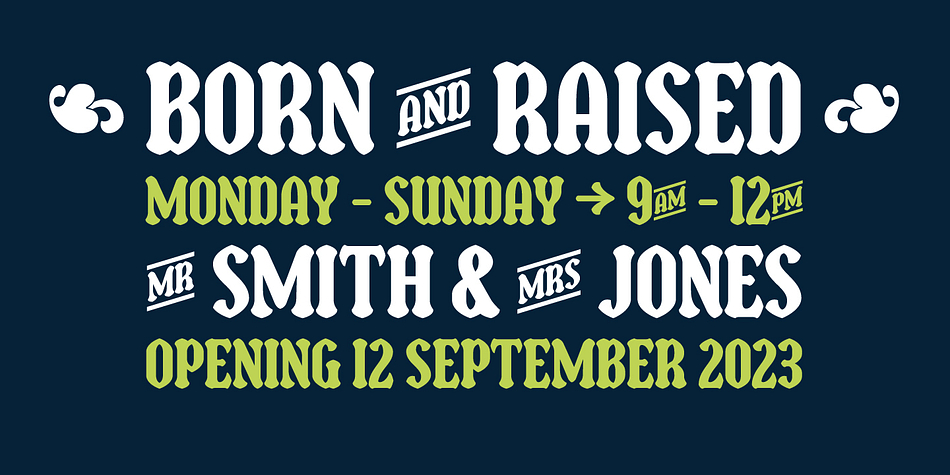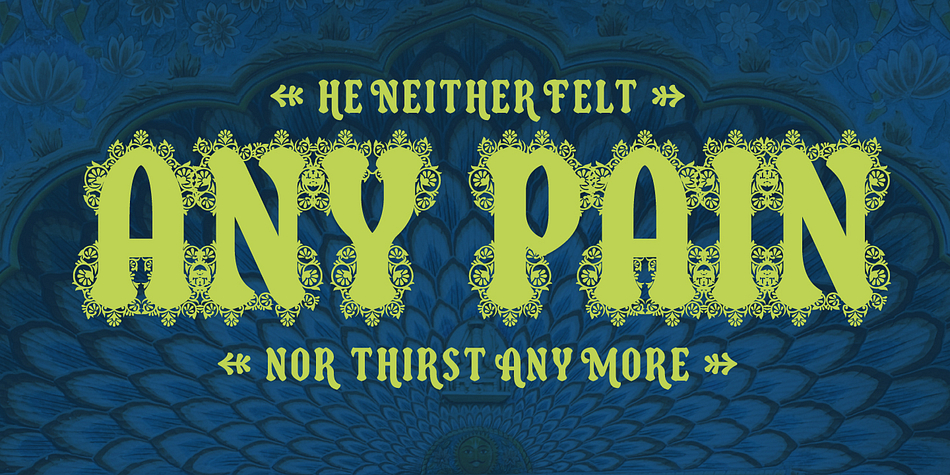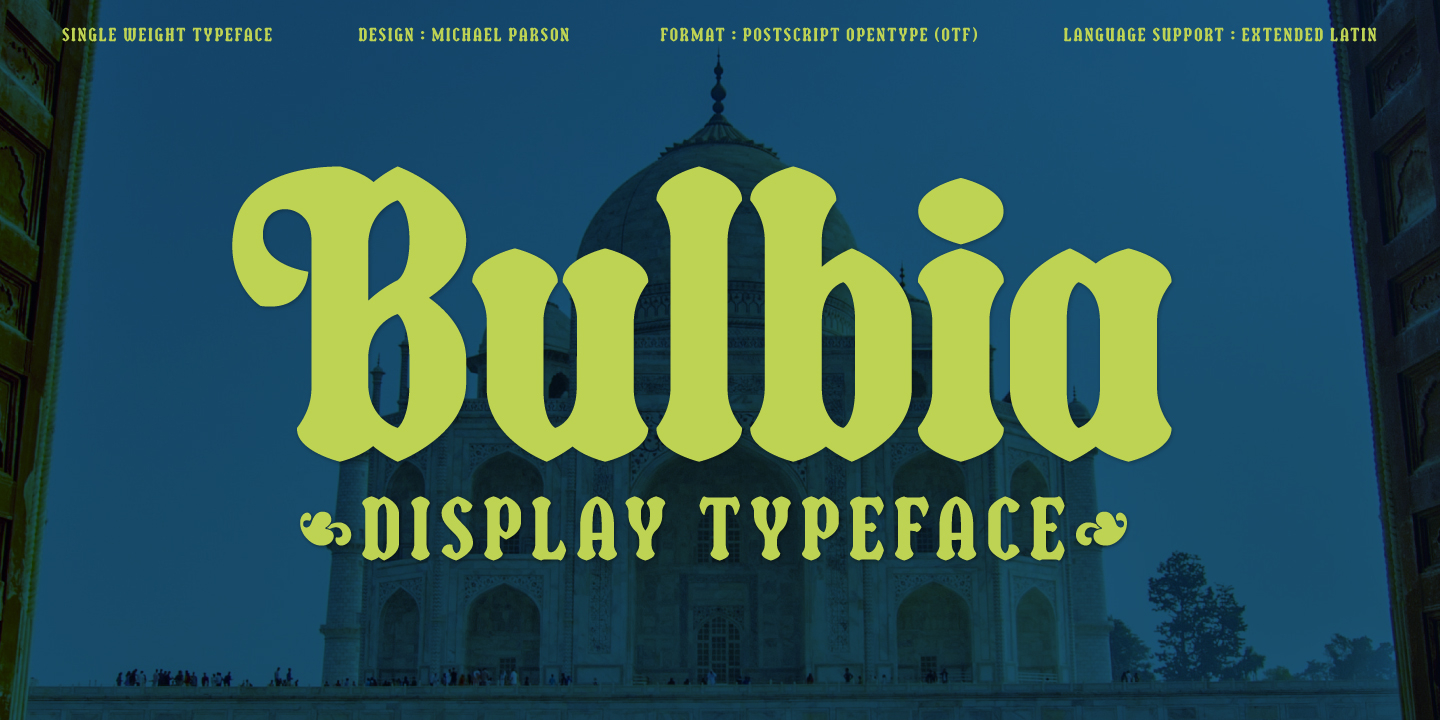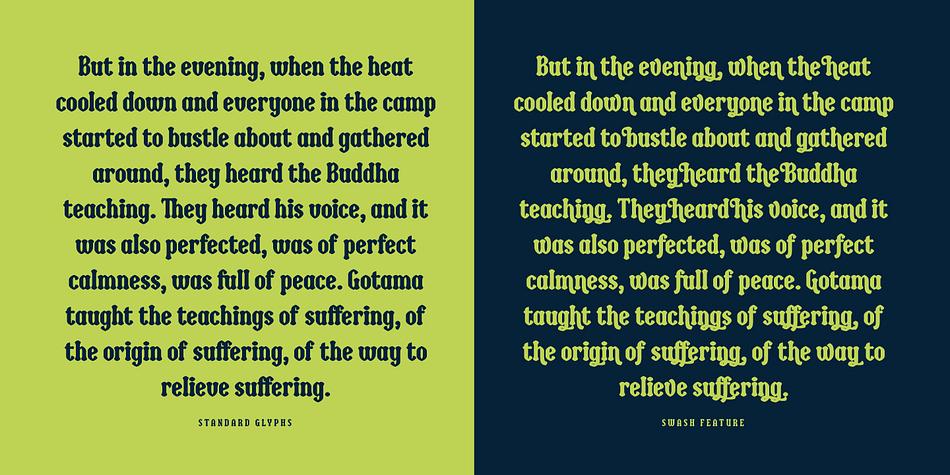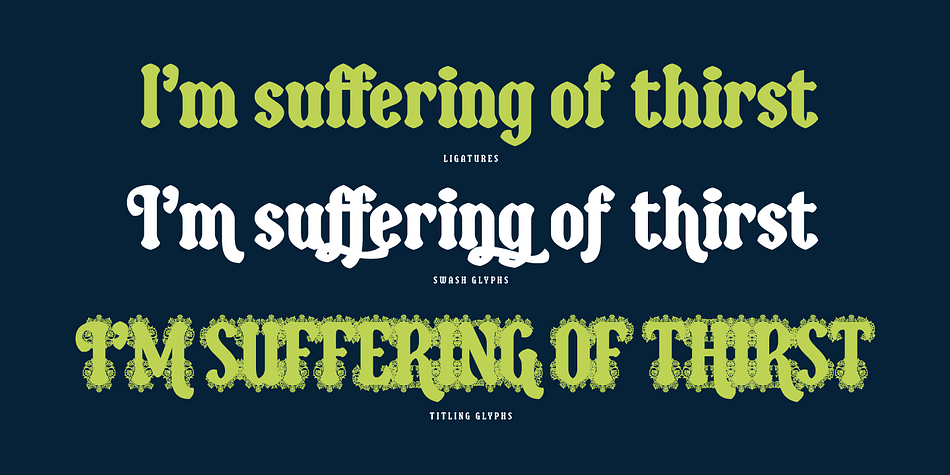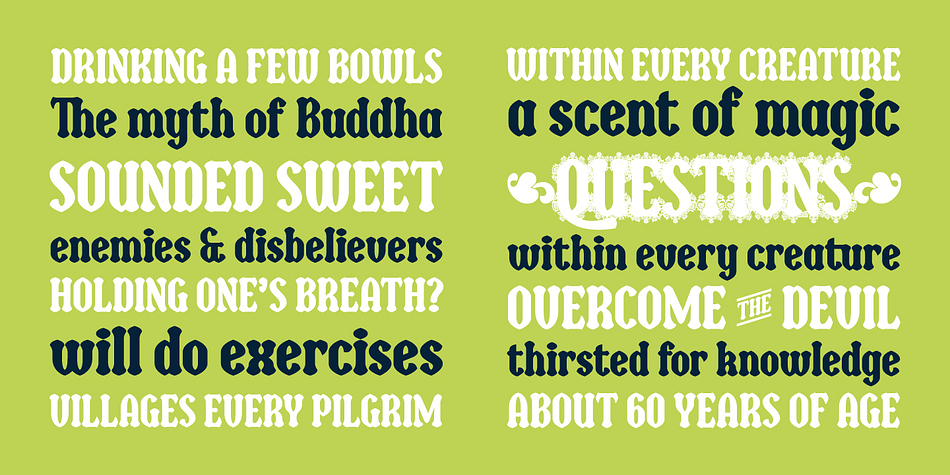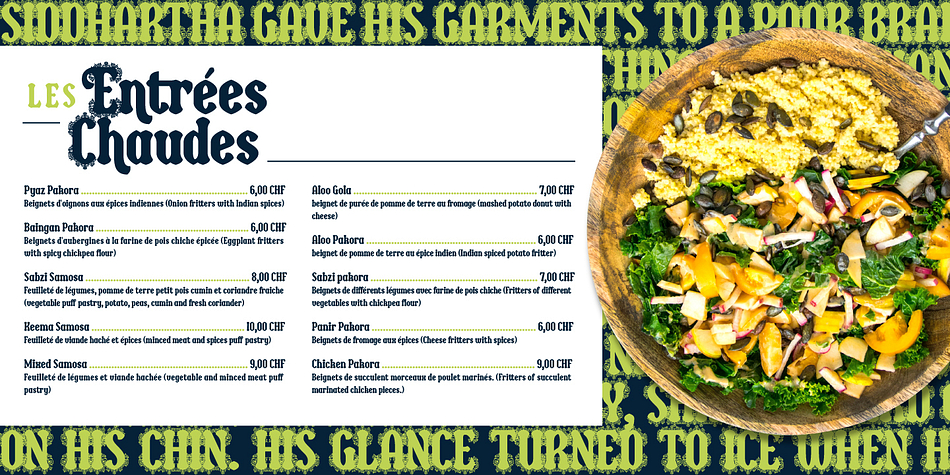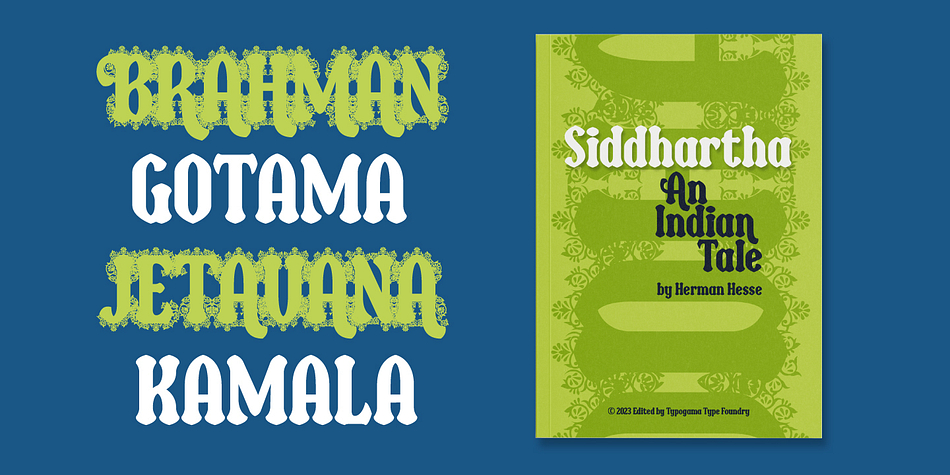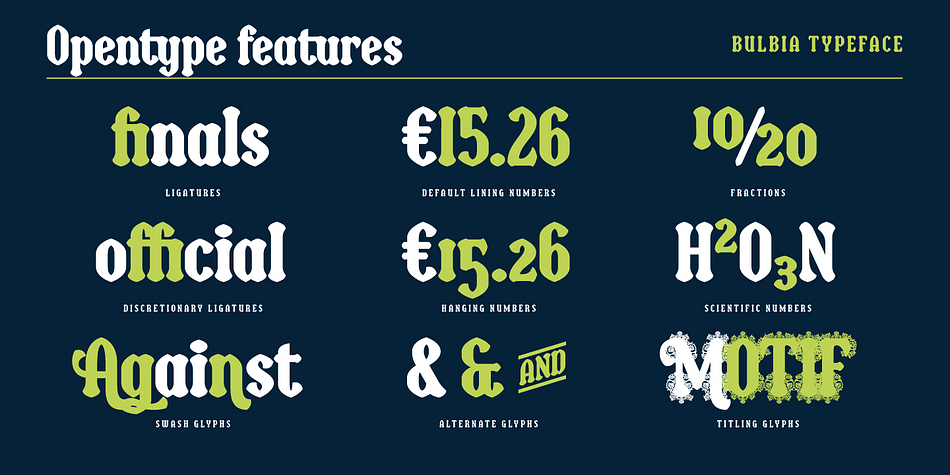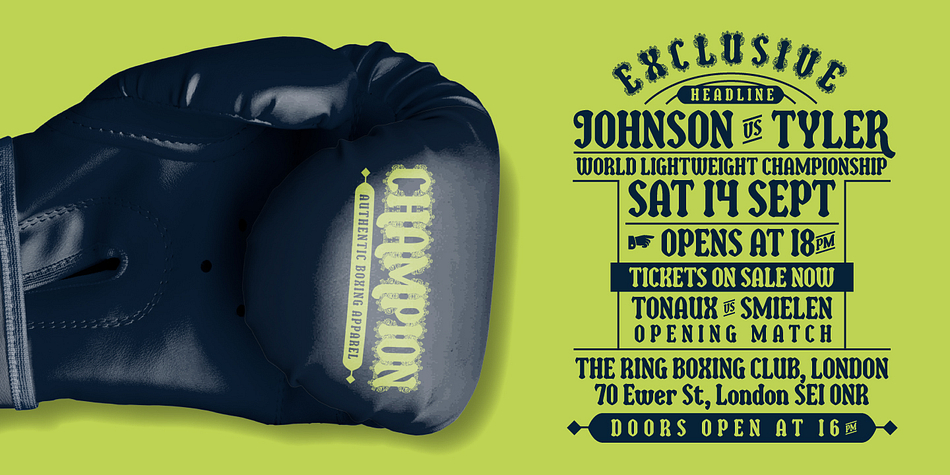
Bulbia
Designed by Michael Parson, Bulbia is a display sans font family published by Typogama.
Bulbia is a single weight, display typeface inspired by the teardrop shape featured in some middle eastern design. With a bold stroke and high contrast, this font conveys a strong, unique voice that can be further enhanced through the use of it’s extensive Opentype features. Through Swash letters, decorative Titling forms or even a range of precomposed word marks, this single weight font expands into a complete design toolkit with multiple applications and possibilities.